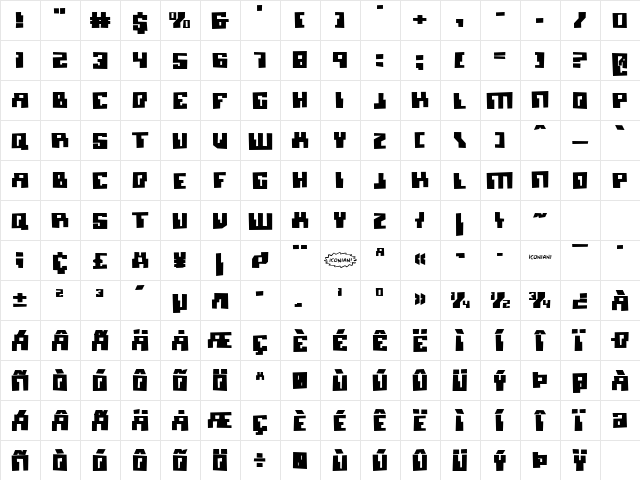
Micronian Blown Regular Free Font
Micronian Blown Regular
Design Context for Micronian Blown
Micronian Blown is a composed and adaptable typeface that performs quietly and consistently across a wide range of design contexts.
Pro Tip: Use Micronian Blown in both headline and body roles to test its range before committing to a single application.